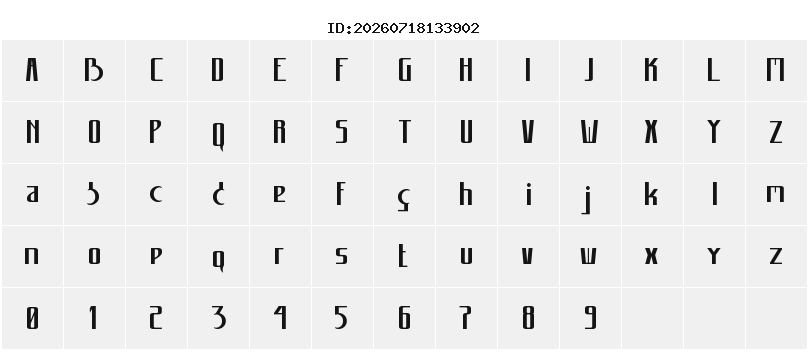
Carannorov Preview
• Font Name: Carannorov
• Full Font Name: Carannorov
• Version: Version 1.00 May 24, 2012, initial release
About Carannorov.ttf
Carannorov.ttf is a modern, elegant sans-serif font designed for ultimate readability and visual harmony. Perfect for branding, headlines, web design, and print materials.